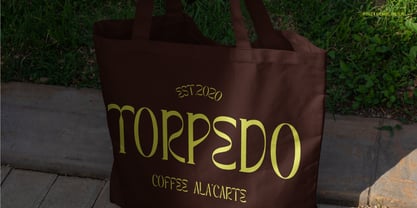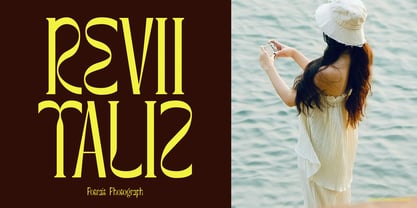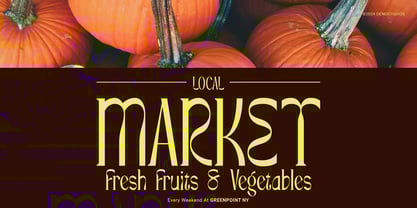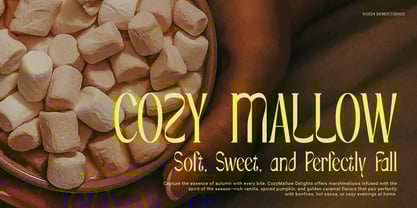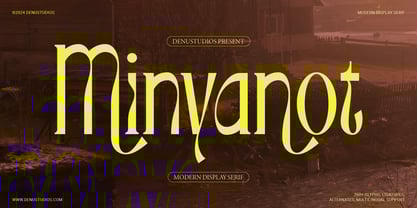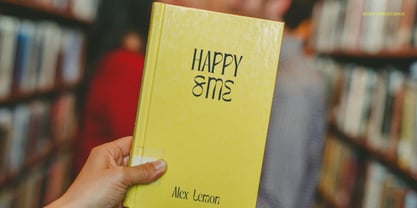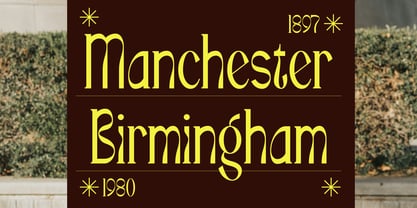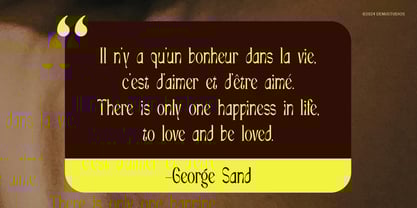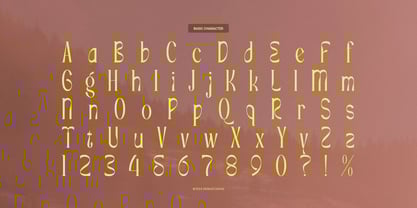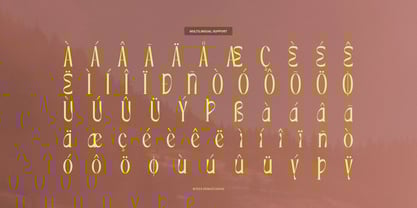
Minyanot
Minyanot | Modern Display Serif, from Denustudios, suitable for any projects such as: logos, branding projects, homeware designs, product packaging, mugs, quotes, posters, shopping bags, t-shirts, book covers, name card, invitation cards, greeting cards, label, photography, watermark, special events, and all your other lovely projects that need a Modern Display Serif taste.
• Regular and Italic
• Standard glyphs
• Alternate and Ligature
• Fonts include multilingual support